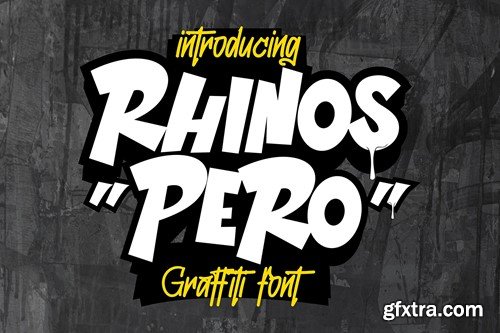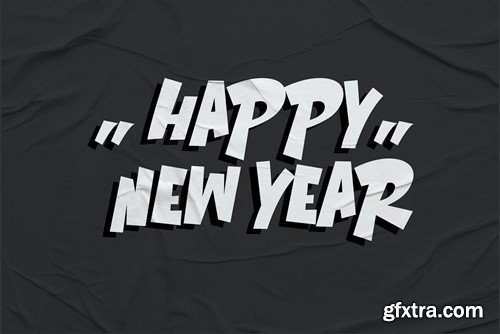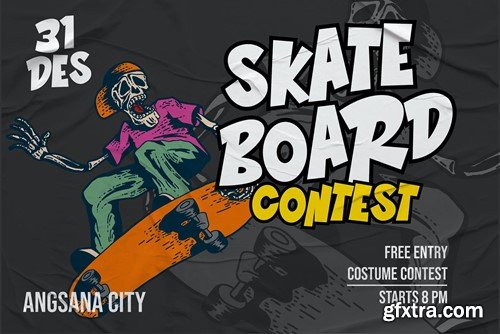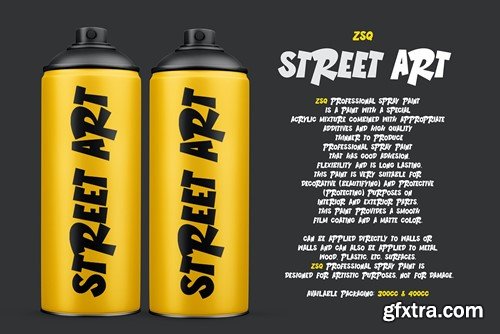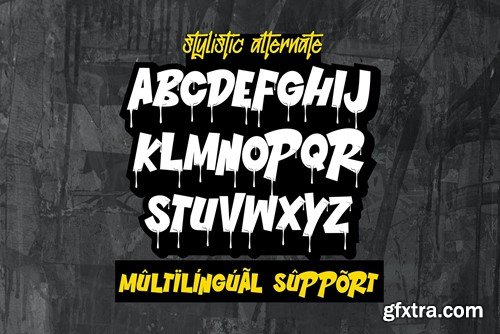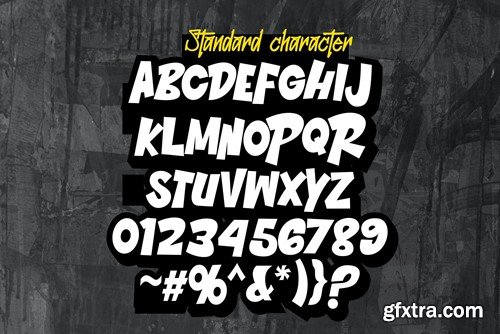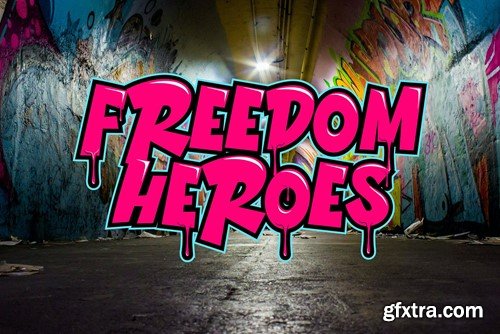
Rhinos Pero - 非凡涂鸦字体 J4XVJKK
Rhinos Pero is a quirky graffiti font that embodies a playful and unconventional style. Fonts in this category often feature eccentric and unique letterforms, incorporating creative elements that deviate from traditional typographic norms. This particular font might showcase irregular shapes, whimsical characters, or unconventional design traits, offering a distinct and unconventional appearance. With its quirky attributes, Rhinos Pero is suitable for designs aiming to convey a fun and offbeat visual impression. It could be applied in various creative projects seeking a playful and distinct graffiti-inspired typographic style. File Included: Features: That's it! If you have any questions don't hesitate to ask! Stay Classy!